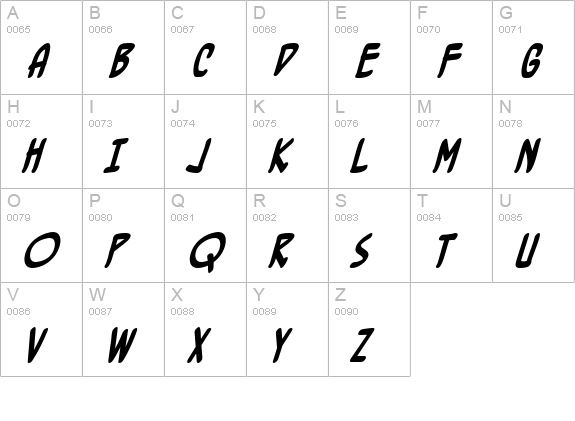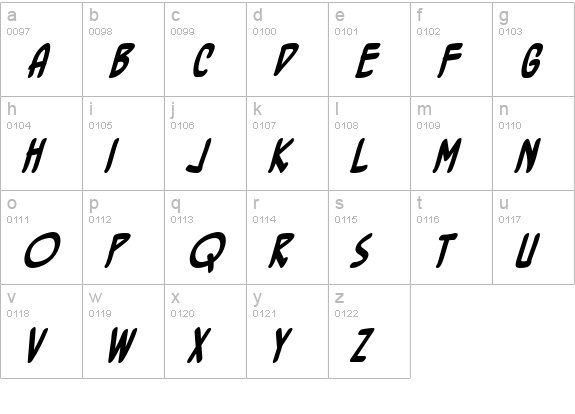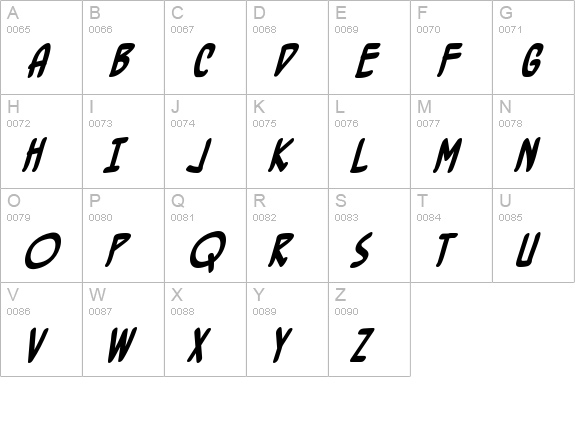
BottleRocket BB Bold Font Details
BottleRocket BB Bold is a strong, high-contrast variant in the BottleRocket typeface family \xE2\x80\x94 well suited to headlines, attention-grabbing titles, and strong calls-to-action.
BottleRocket BB Bold font is a striking and bold typeface that demands attention with its modern and sleek design. This font exudes confidence and power, making it perfect for headlines, posters, and branding projects that require a strong visual impact. The thick and rounded letterforms of BottleRocket BB Bold add a touch of playfulness to its overall bold appearance, creating a unique and versatile font that can be used in a variety of design applications. The best part about BottleRocket BB Bold font is that it is available for free download at FontsMarket.com. This means that you can easily access this eye-catching typeface without any cost, making it a valuable addition to your font collection. Whether you are a designer looking to make a statement or a creative individual wanting to add some flair to your projects, BottleRocket BB Bold font is a must-have font that combines style and accessibility in one package. Download it today and elevate your designs with this dynamic and expressive typeface.